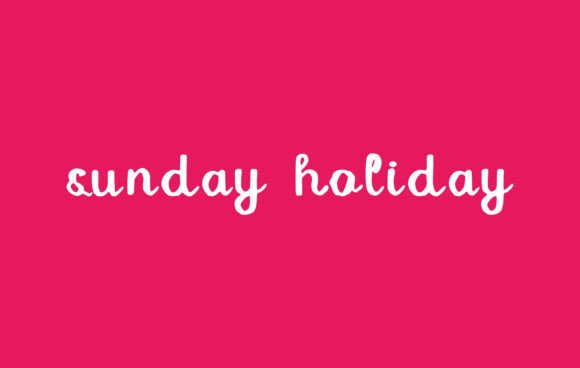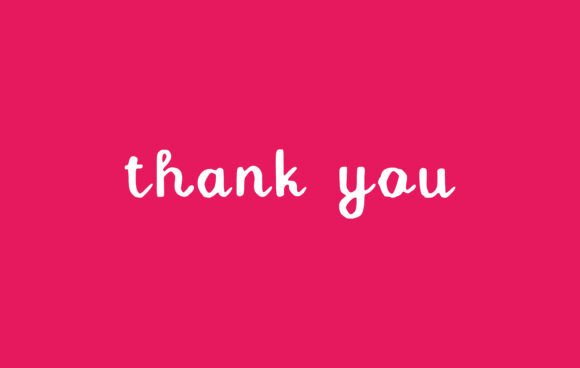
Introduction to Ruby Sea Font
As a designer, there’s nothing quite like the thrill of bringing a creative project to life. You’ve spent hours pouring over inspiration, refining your ideas, and selecting the perfect design elements to make your vision shine. But sometimes, no matter how hard you try, your project just needs that special something to take it to the next level. This is where the Ruby Sea Font comes in – a beautifully crafted, authentic handwritten font that adds a touch of romance and sophistication to any design.
Whether you’re working on a magazine headline, social media campaign, or wedding invitation, the Ruby Sea Font is an essential design resource that will elevate your creative ideas and leave a lasting impression on your audience. With its high-quality, legible design, this font is perfect for any project where you want to make a statement.
Key Features of Ruby Sea Font
- High-quality design resource perfect for creative projects, offering a unique and elegant style.
- Features a transparent background, making it ideal for use on any color or design background.
- Designed with high-resolution graphics in mind, suitable for use in print and digital media.
- Ruby Sea Font is a versatile design element, suitable for a wide range of creative projects, from branding and logos to typography and graphics.
Honest Review: Ruby Sea Font
As a designer, I’m always on the lookout for high-quality design resources that can elevate my creative projects. Recently, I came across the Ruby Sea Font, and I’m excited to share my honest review.
Here are the things that work well: ✨ The font has a beautiful, elegant design that’s perfect for branding and editorial projects. The transparent background option is also a huge plus, allowing for seamless integration into any design. Additionally, the font is available for free download, making it an excellent resource for designers on a budget.
Now, here are some limitations: ⚠️ The font is only available in a limited number of weights and styles, which might not be ideal for designers who require a wide range of options. Additionally, the font may not be suitable for very large-scale projects, as the download file size can be quite large.
Overall, I’m impressed with the Ruby Sea Font. It’s a solid addition to any designer’s toolkit, and I appreciate the fact that it’s available for free. While it may have some limitations, it’s a great resource for designers who are looking for a high-quality, elegant font for their creative projects.
- Perfect for branding and editorial projects
- Transparent background option for seamless integration
- Limited number of weights and styles
The Ruby Sea Font is a high-quality design resource that can be used in various creative projects. With its unique style and transparent background, it’s perfect for designers looking to add a touch of elegance to their work.
Tips for Getting the Most Out of Ruby Sea Font
Here are some tips for getting the most out of the Ruby Sea Font:
1. Use the font in combination with other design elements to create a cohesive look.
2. Experiment with different font sizes and styles to add visual interest.
The Ruby Sea Font is commonly used in:
1. Wedding invitations and stationery.
2. Branding and marketing materials.